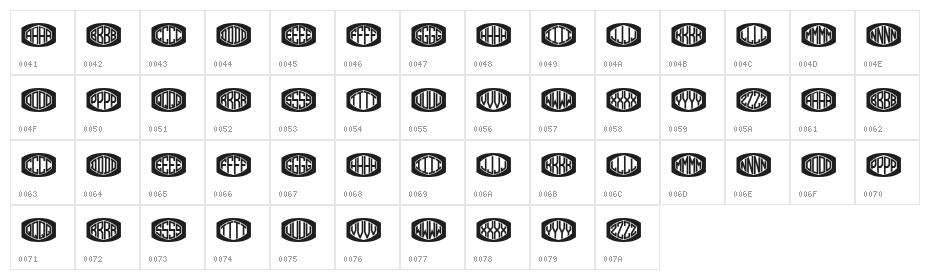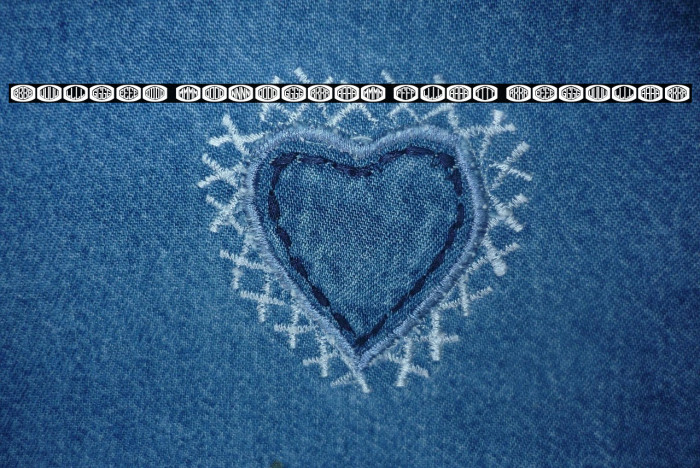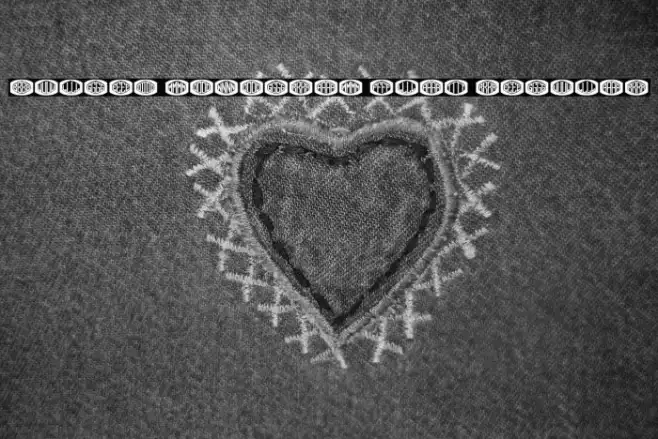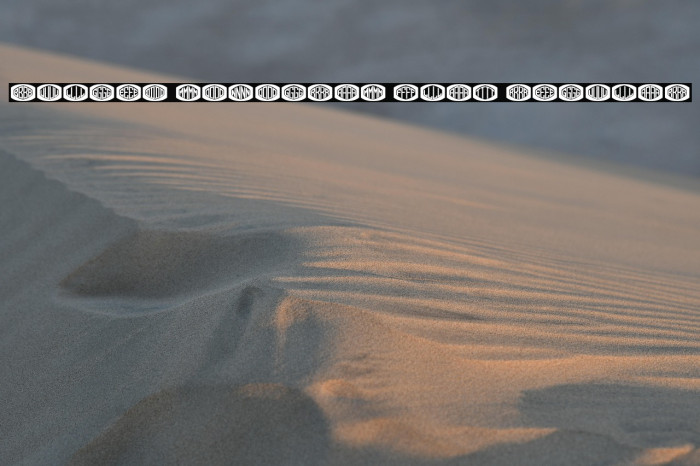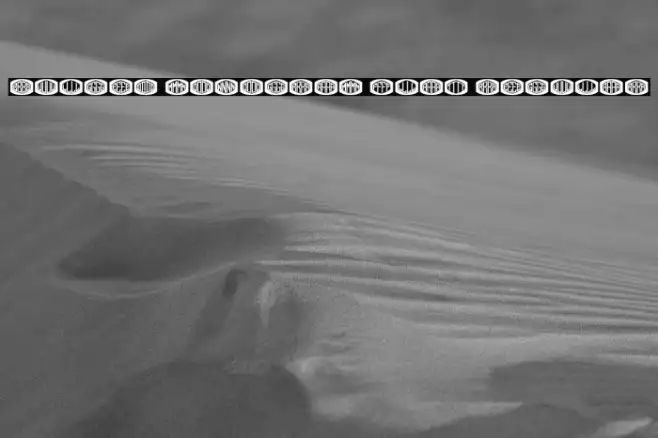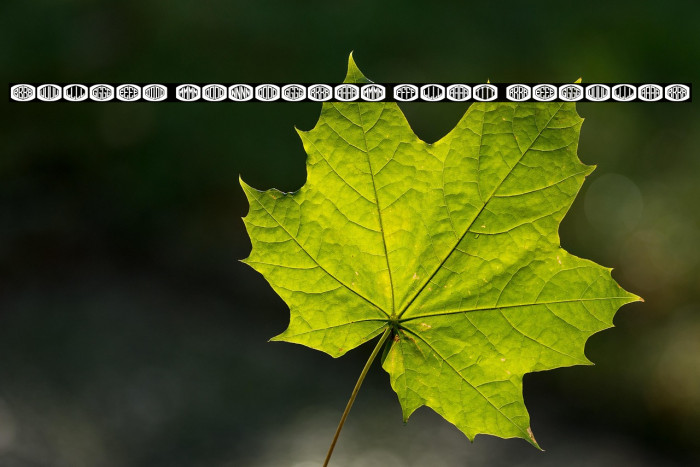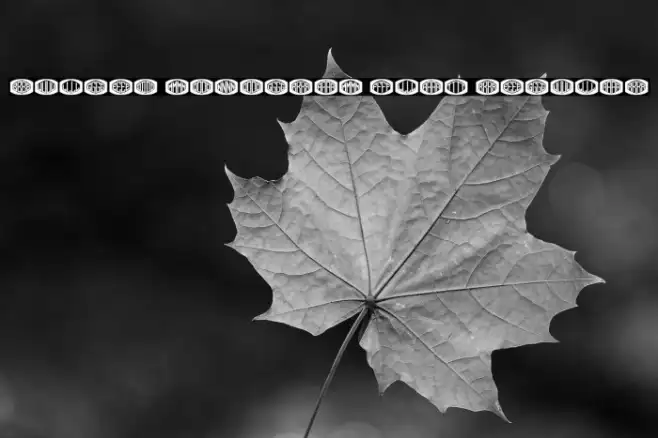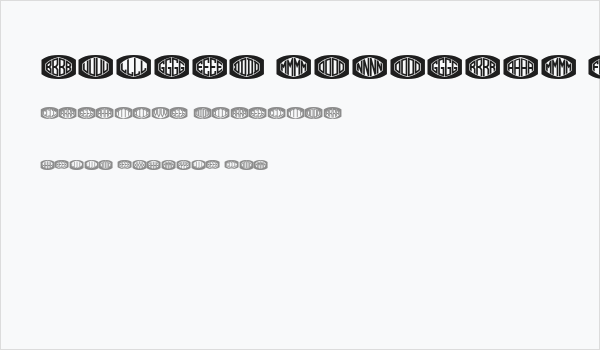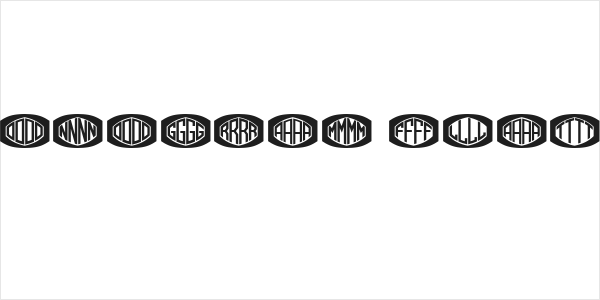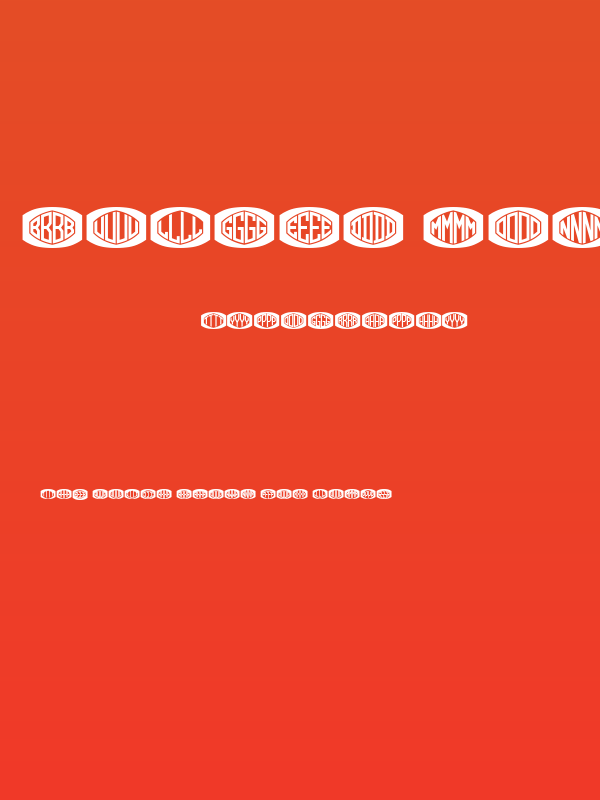
Bulged Monogram Flat Regular Font
Bulged Monogram Flat Regular Description
This font features a unique monogram style with each character enclosed in an oval shape, giving it a distinct and decorative appearance. The letters are bold and capitalized, with a consistent thickness throughout, creating a uniform look. The design is reminiscent of traditional monogram styles, often used for personalization and branding. The enclosed nature of each character adds a sense of formality and elegance, making it suitable for upscale or classic design projects. The font's structure ensures readability while maintaining its decorative appeal, making it versatile for various applications.
| Proposed Projects | Ideal for personalized items, branding, invitations, and luxury product packaging. |